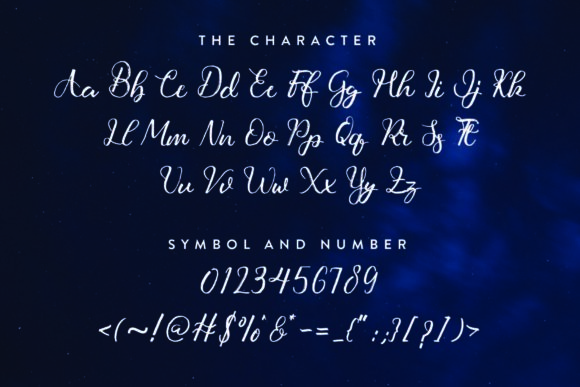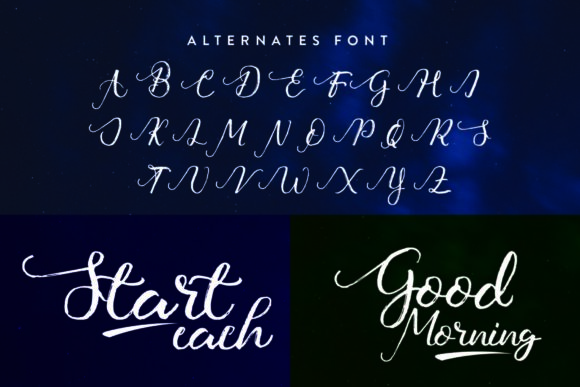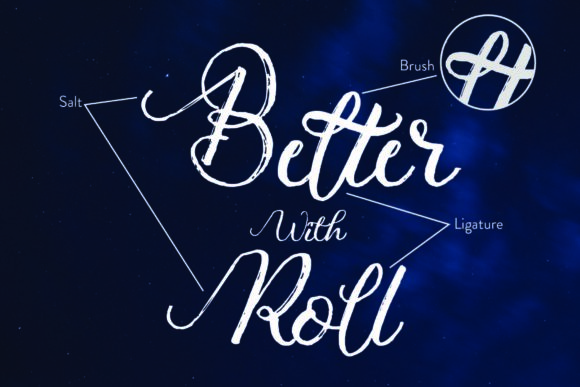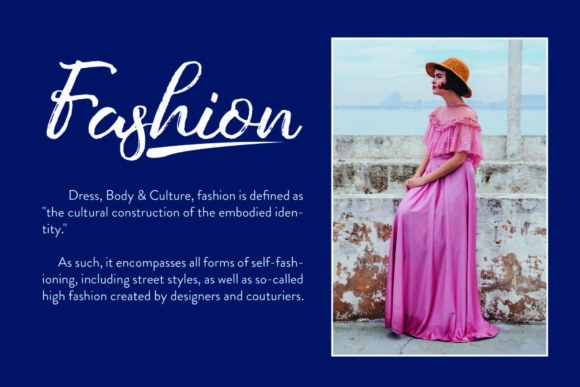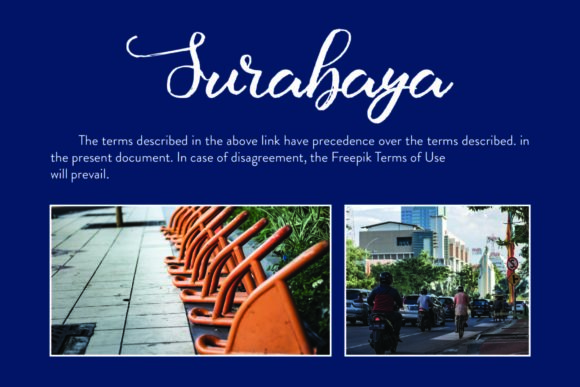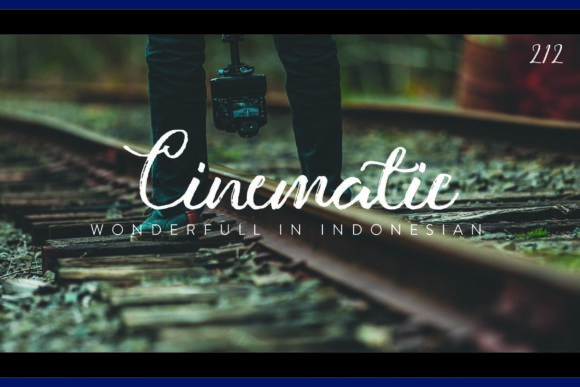
Discover the Timeless Elegance of Allisabeth Font
Have you ever been working on a project, pouring your heart and soul into the design, only to feel like something’s missing? You’ve got the perfect color palette, the ideal typography, and the right amount of whitespace – but still, it’s not quite there. That’s when you stumble upon a font that changes everything. For many designers, this moment of discovery is a game-changer, and it’s exactly what we’re excited to share with you today – the Allisabeth Font.
This simple yet elegant handwritten font is more than just a pretty face. It’s a versatile tool that can elevate any creation, from elegant wedding invitations to modern business cards. Whether you’re a seasoned designer or just starting out, the Allisabeth Font is a valuable addition to your library. Its unique blend of cursive and brushstrokes creates a warm, inviting feel that’s hard to resist.
Allisabeth Font Key Features
- Font Family: Allisabeth
- Unique Characteristics: Script, Handwritten, Elegant, High-end, Wedding, Calligraphy
- Font Style: Regular, Italic, Bold, Bold Italic
Allisabeth Font Review
As a designer, I was excited to dive into the world of Allisabeth Font. Here’s my honest take on this font.
- Unique and elegant style: Allisabeth Font has a distinct, vintage flair that sets it apart from more common fonts.
- Highly legible: This font is clear and easy to read, making it perfect for body text and longer passages.
- Well-suited for various purposes: From titles and headings to body text and captions, Allisabeth Font is versatile and can be used in a wide range of applications.
- May not be suitable for modern or minimalist designs: The ornate details and classic feel of Allisabeth Font might clash with modern or minimalist aesthetics.
- Not ideal for small text sizes: Due to its intricate details, Allisabeth Font might become difficult to read at very small text sizes.
Allisabeth Font is a beautiful, elegant font that’s perfect for those looking to add a touch of classic sophistication to their designs. While it may not be the best fit for every project, it’s a great option for designers seeking a unique, high-quality font.
Tips: Use Allisabeth Font for titles and headings to add a touch of elegance to your design.
Tips: Use Allisabeth Font for creating custom logos or typography-based designs.
Tips: Use Allisabeth Font for creating professional-looking presentations and documents.
Allisabeth Font is suitable for a variety of use cases, including:
1. Branding and logos.
2. Typography-based designs.
3. Creative and elegant text overlays.
4. Professional presentations and documents.
Alternatives to Allisabeth Font for Designers
Playfair Display is a luxurious and elegant serif font perfect for creating a sophisticated and high-end look. It’s ideal for use in titles, headings, and other prominent text elements where you want to add a touch of sophistication.
Compared to Allisabeth Font, Playfair Display has a more refined and classic feel, making it a great choice for formal or luxury brands. However, it lacks the playful and whimsical touch of Allisabeth Font.
Alex Brush is a beautiful and elegant script font that’s perfect for creating a soft and romantic look. It’s ideal for use in titles, headings, and other prominent text elements where you want to add a touch of elegance and sophistication.
Compared to Allisabeth Font, Alex Brush has a more refined and classic feel, making it a great choice for formal or luxury brands. However, it lacks the playful and whimsical touch of Allisabeth Font, and is better suited for romantic or elegant designs.
Great Vibes is a beautiful and elegant script font that’s perfect for creating a soft and romantic look. It’s ideal for use in titles, headings, and other prominent text elements where you want to add a touch of elegance and sophistication.
Compared to Allisabeth Font, Great Vibes has a more refined and classic feel, making it a great choice for formal or luxury brands. However, it lacks the playful and whimsical touch of Allisabeth Font, and is better suited for romantic or elegant designs.